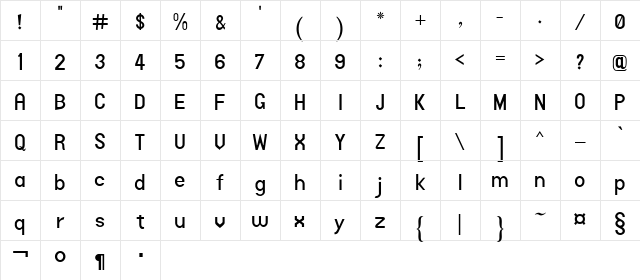
AlQalam Nabeel Regular
Design Context for AlQalam Nabeel
AlQalam Nabeel is a composed and adaptable typeface that performs quietly and consistently across a wide range of design contexts.